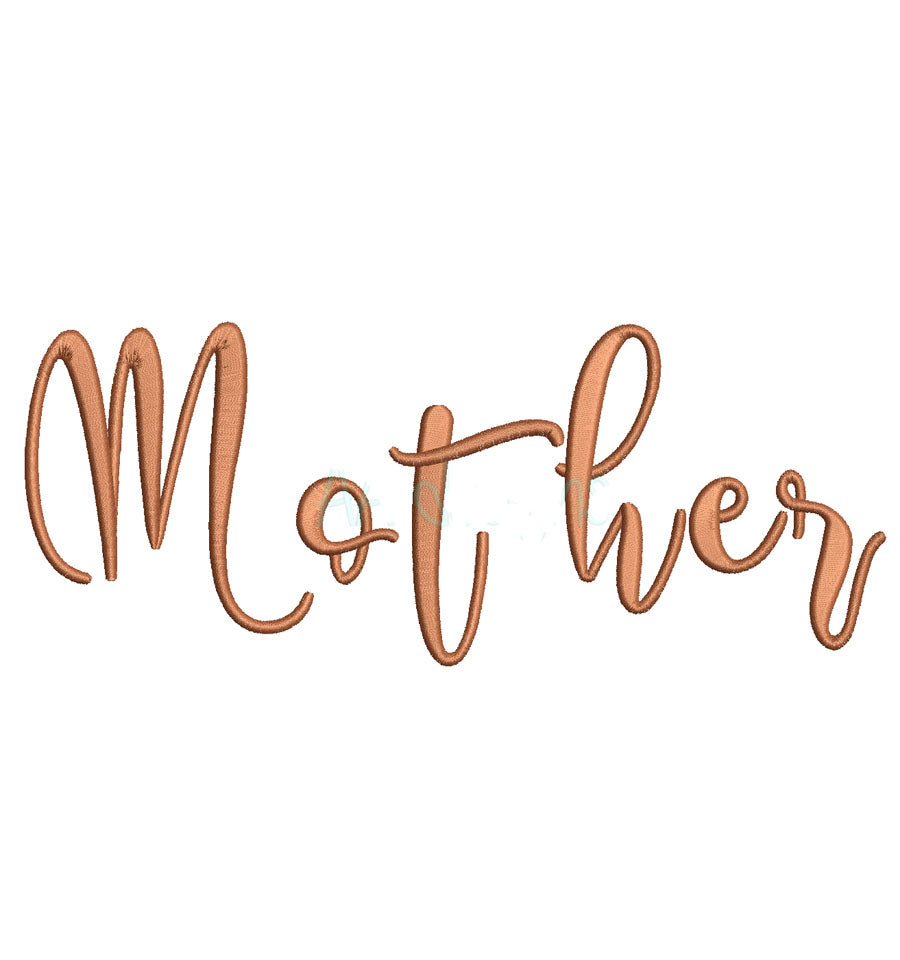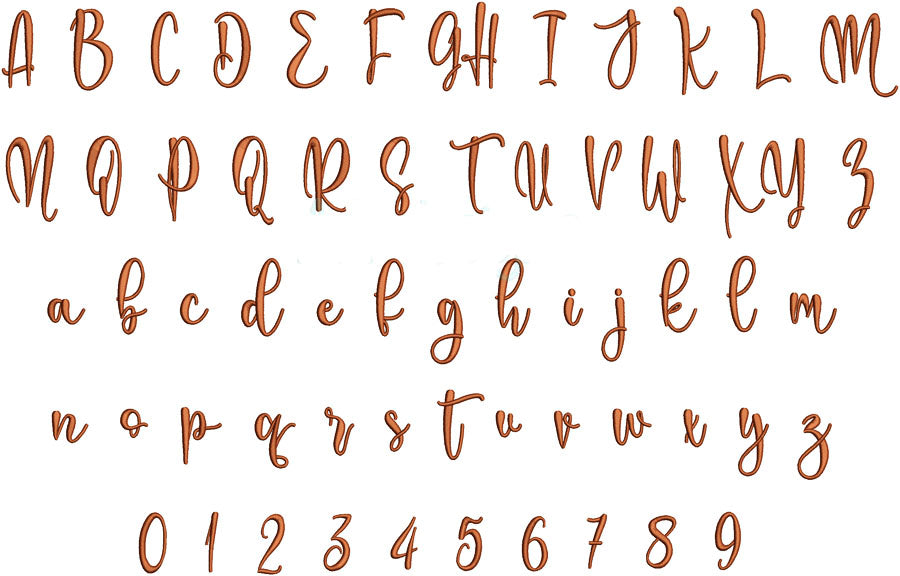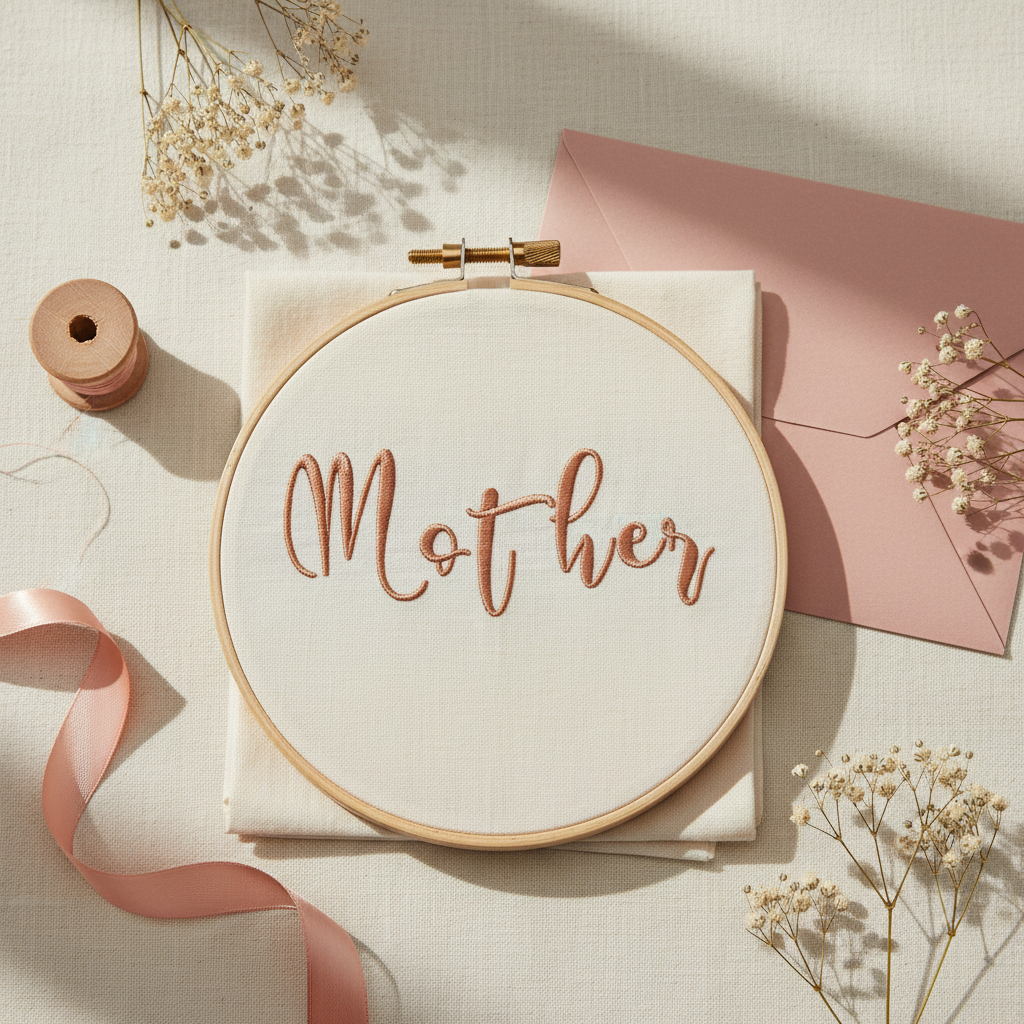
Mother Loving Embroidery Script Font
Create heartfelt embroidery for Mom with the Mother Loving Embroidery Script Font. This graceful script font is perfect for Mother’s Day gifts, family keepsakes, tote bags, sweatshirts, home decor, and personalized projects made with love.